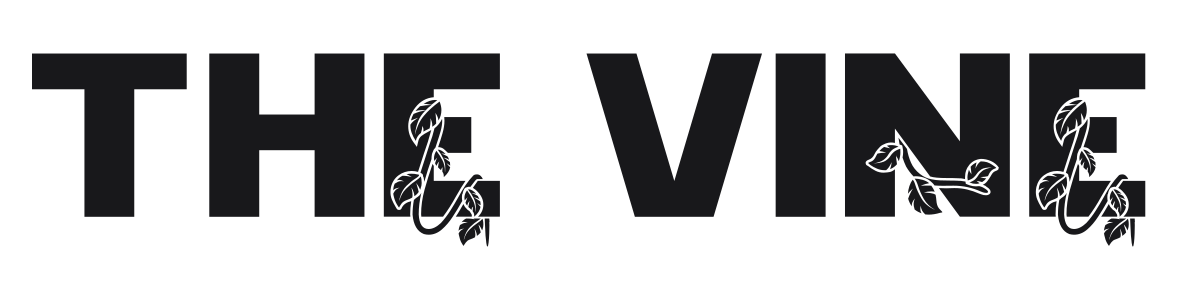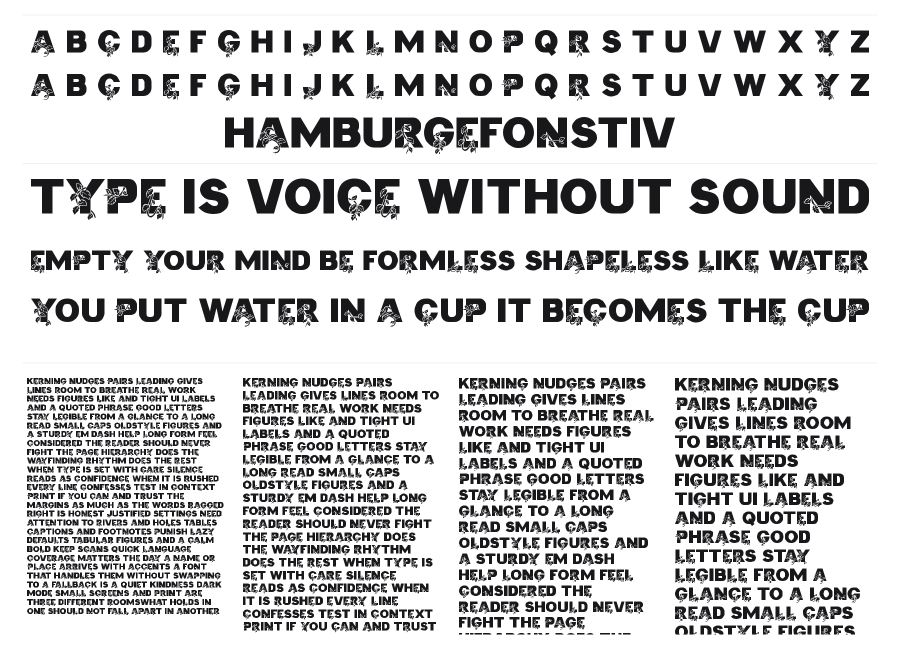
The Vine
The Vine is a bold display sans-serif with botanical vine and leaf illustrations woven directly into select characters. The base font is a heavy, wide grotesque, and the organic floral details create a striking tension between rigid geometry and natural growth. Strong at large sizes for branding, packaging, or editorial headlines with a nature or artisan angle.